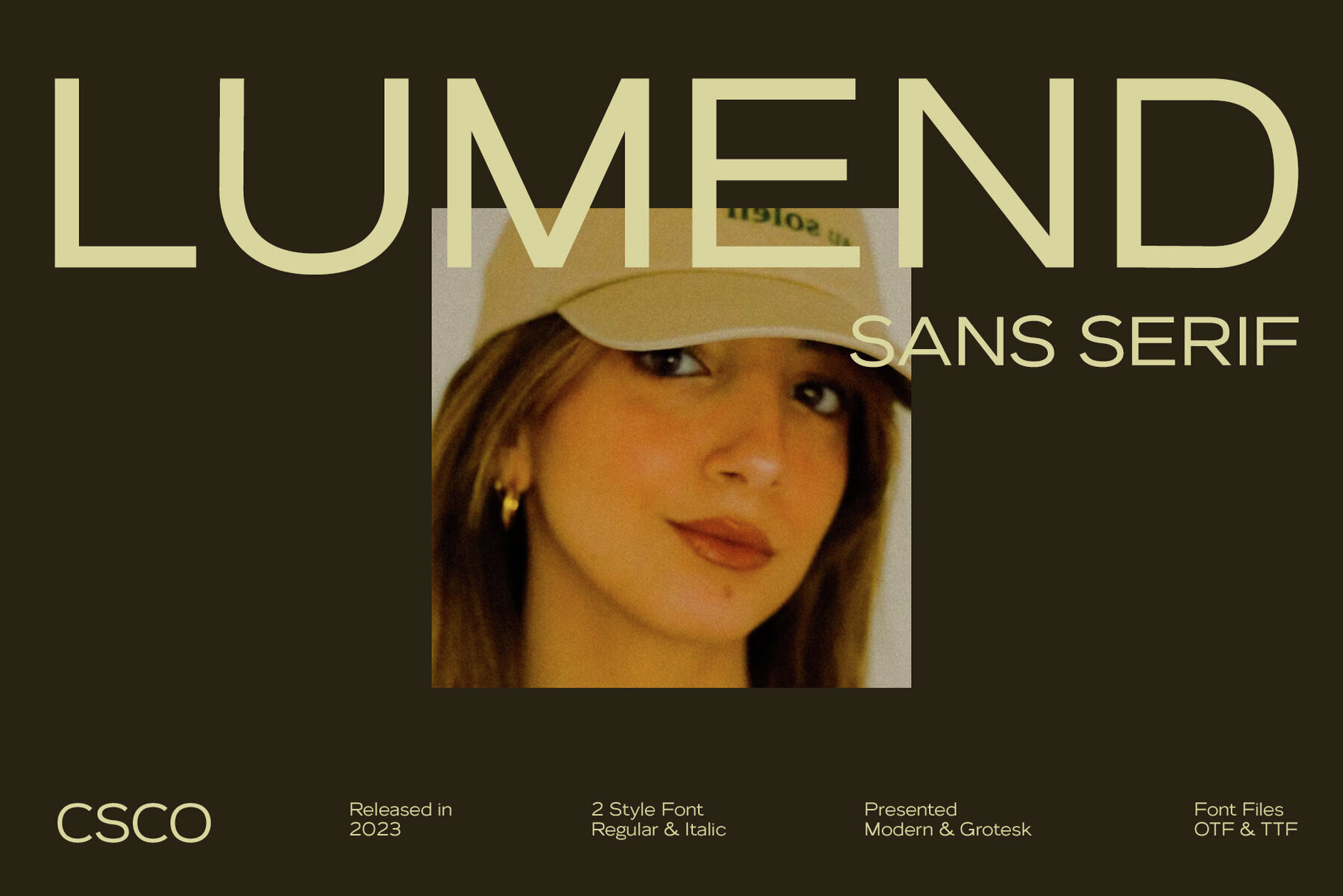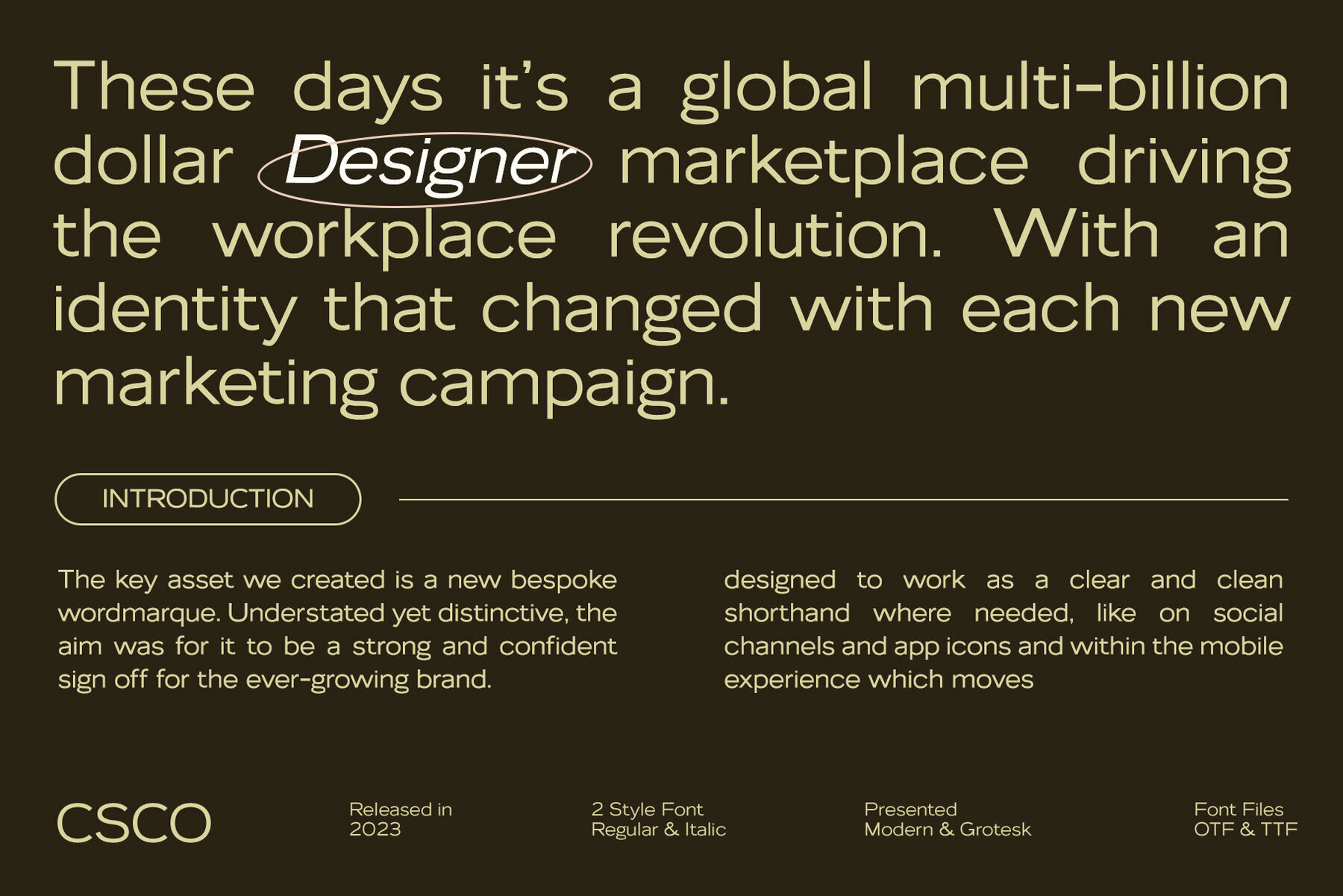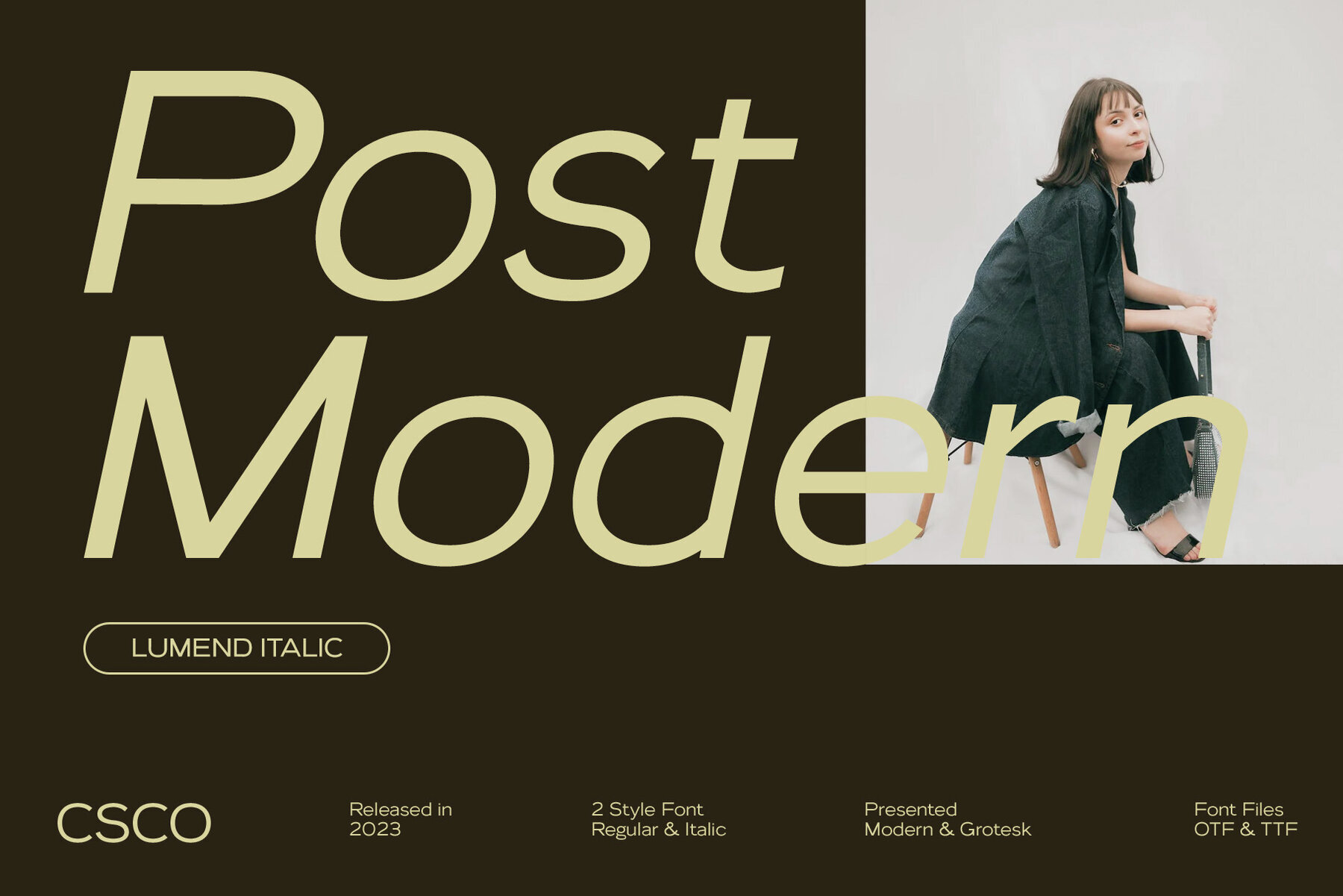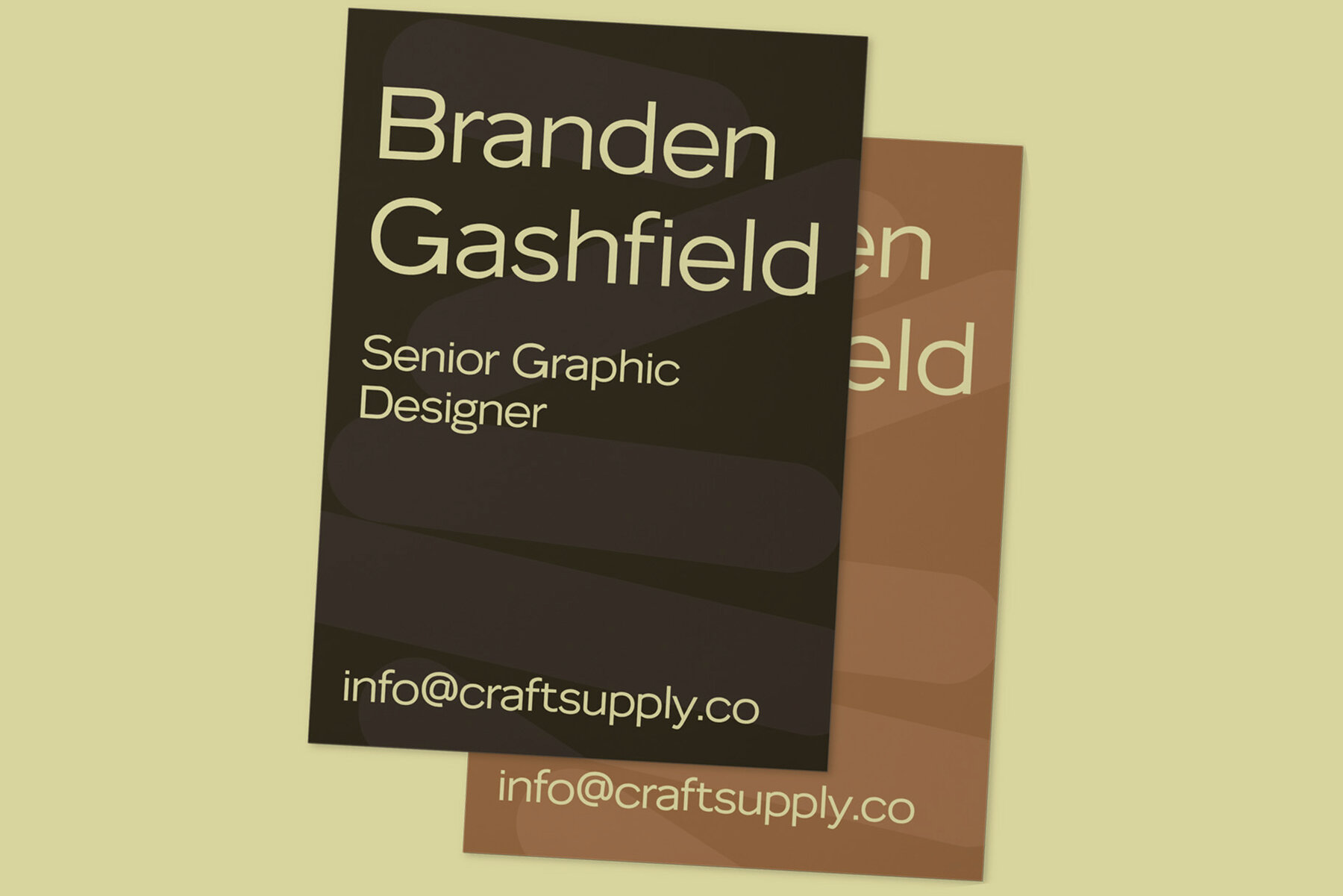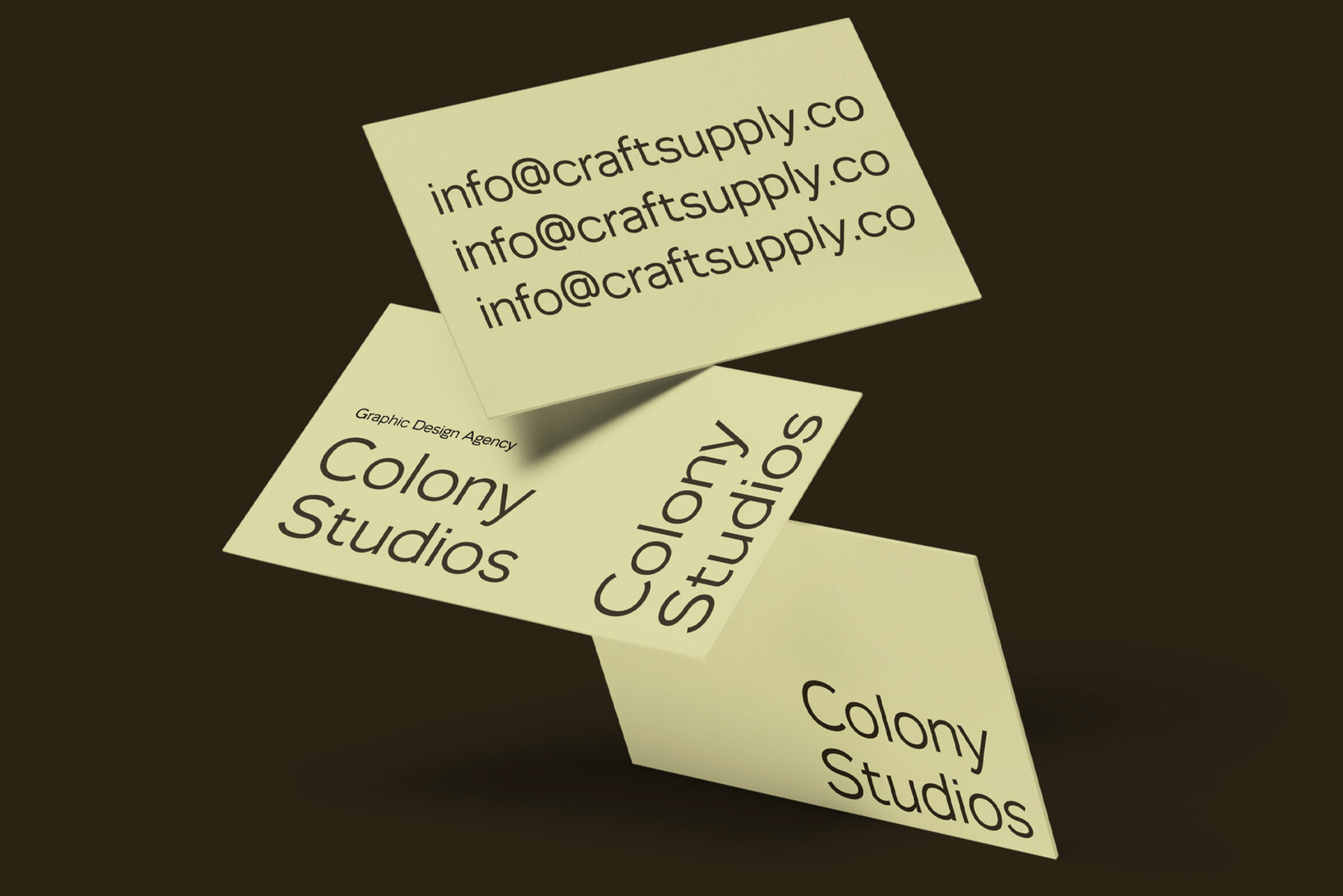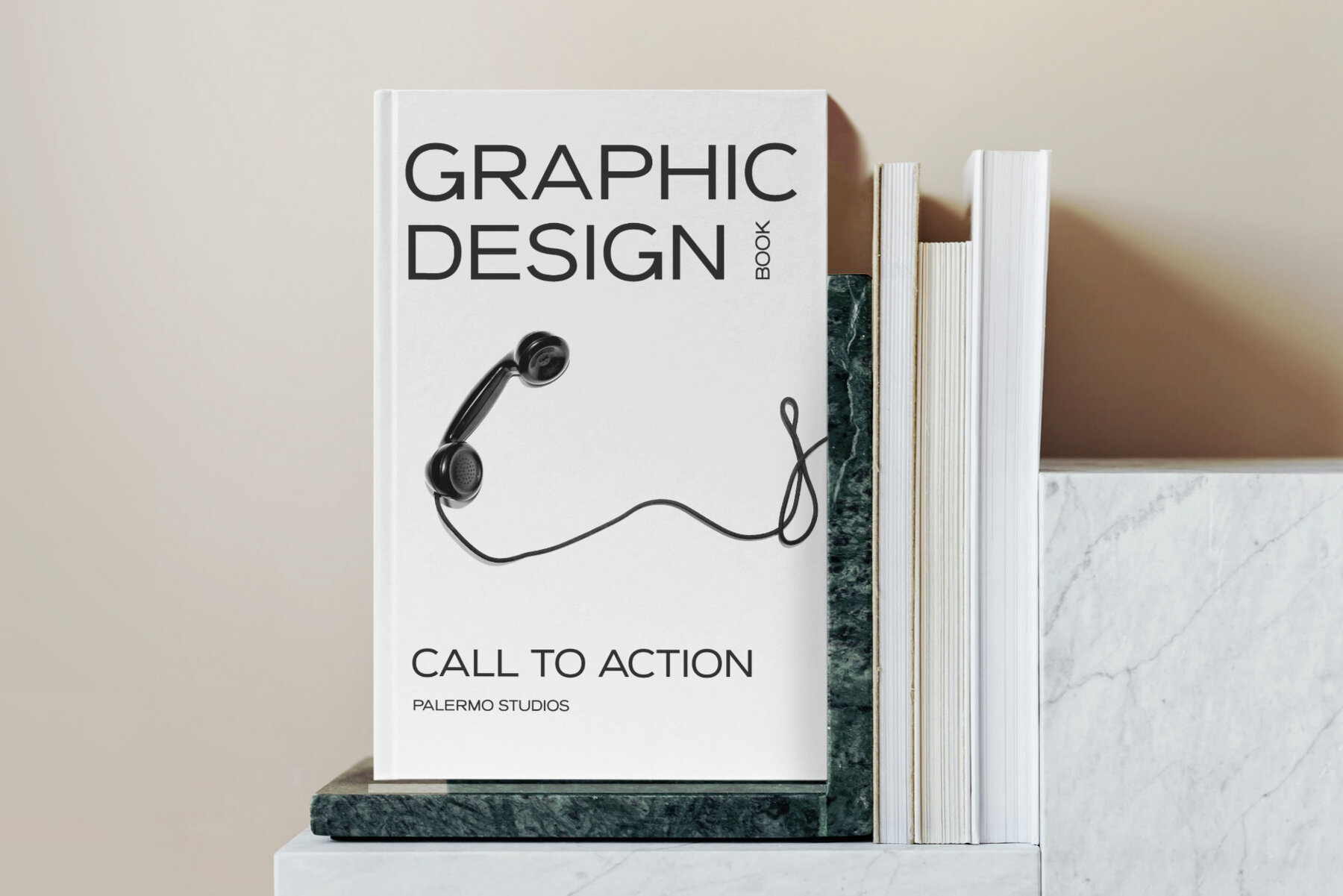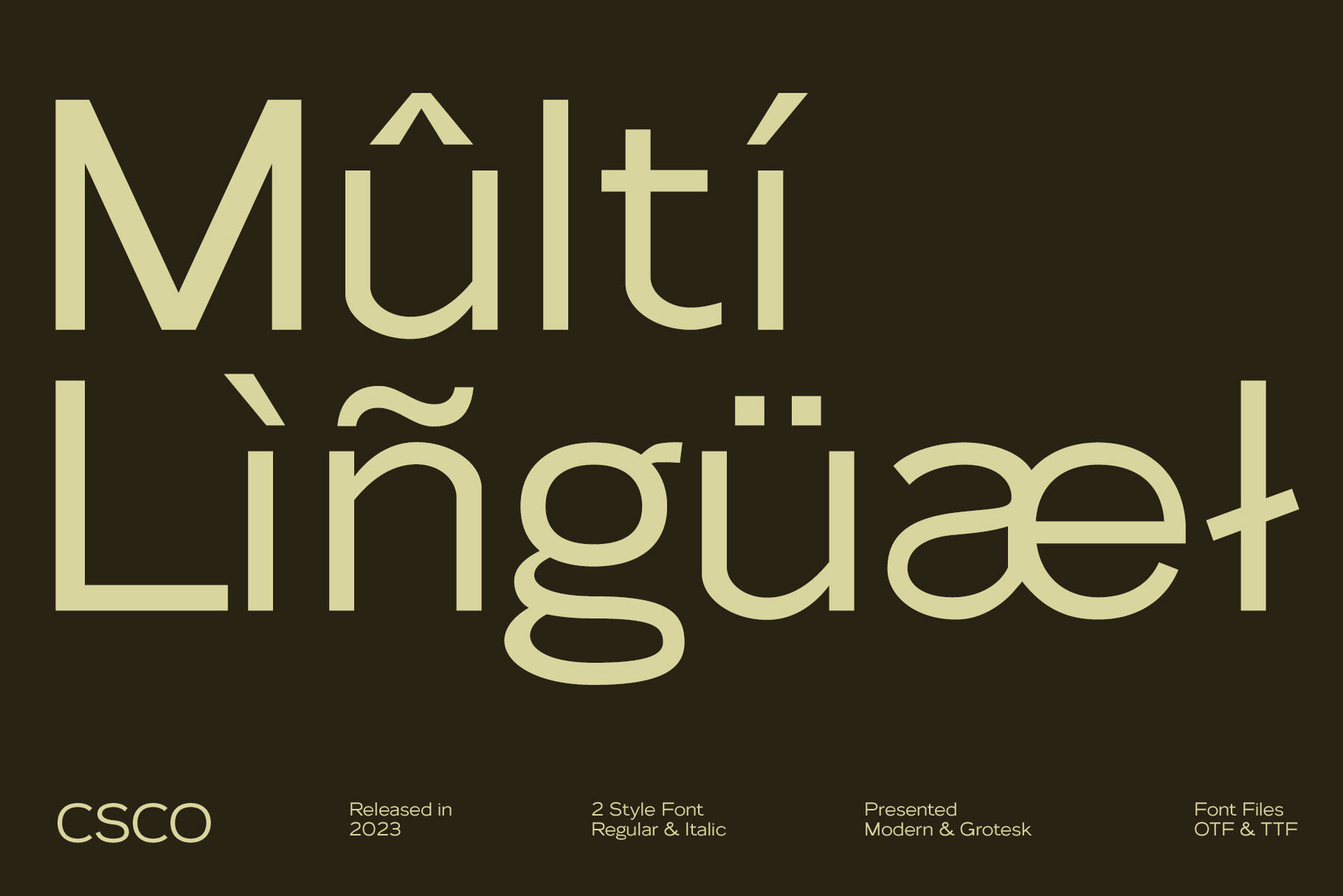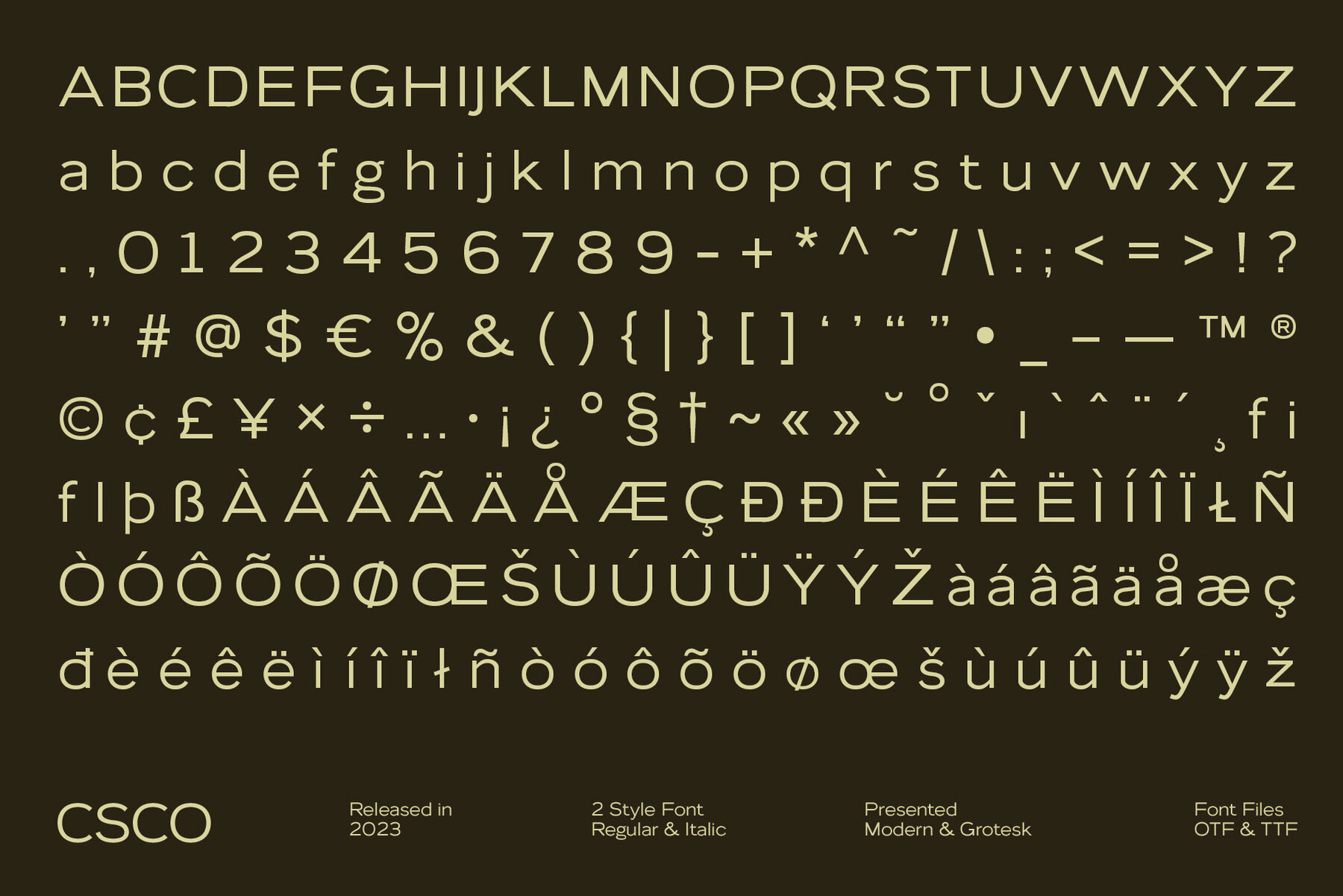
Lumend Font
Lumend is a modern sans serif font featuring a unique grotesque twist. Its minimalist aesthetic is characterized by clean lines and unadorned forms, providing a fresh, contemporary look. Lumend is remarkably versatile, suitable for both text and title settings. Its legibility in lengthy paragraphs is impressive, while its boldness in headlines demands attention, making it ideal for a variety of design projects.Lumend by Craft Supply Co.: Sleek and Contemporary Design
Versatility in Application